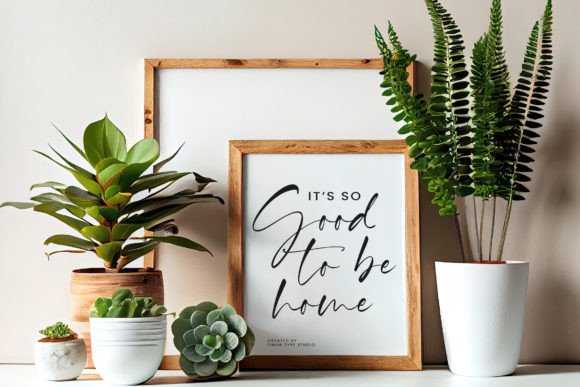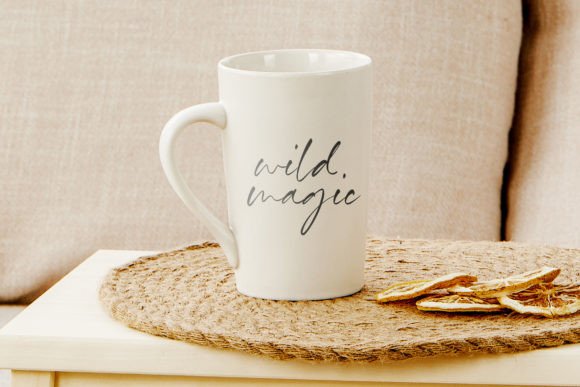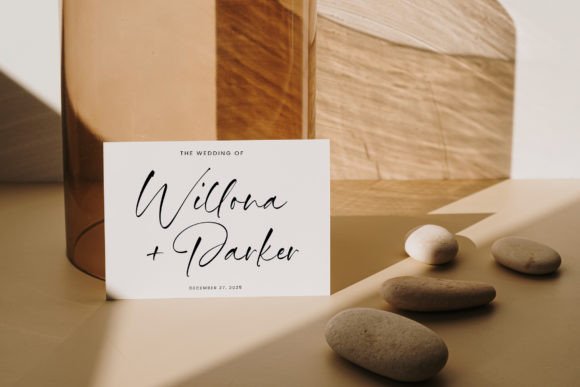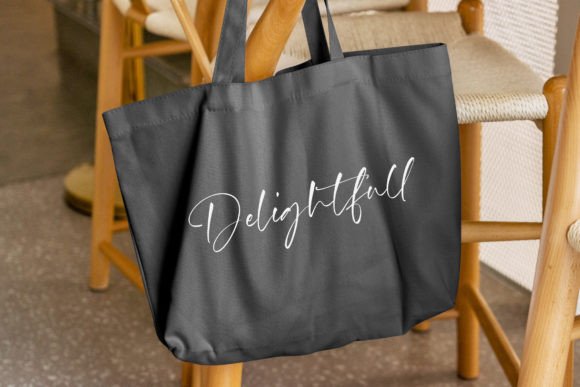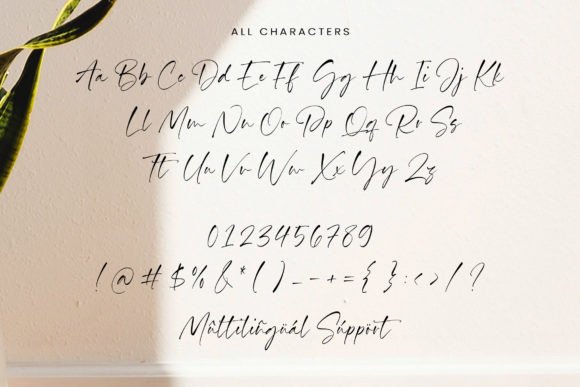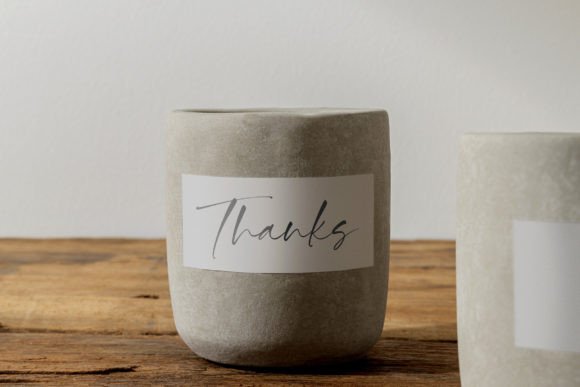
Unlock the Radiant Aesthetic in Your Designs
As a designer, there’s nothing quite like the thrill of finding the perfect font to elevate your project. The moment you stumble upon a font that perfectly captures the essence of your vision – it’s like a lightbulb moment, and all your creative doubts disappear. For those seeking a modern and dynamic aesthetic, look no further than the Bethany Radiant Font.
This fresh and contemporary choice is designed to bring a touch of flair to your design projects. With its unique and expressive letterforms, the Bethany Radiant Font is perfect for adding a trendy and fashionable touch to your branding materials, packaging designs, and social media graphics. Whether you’re aiming for a stylish and modern look or a playful and energetic vibe, this versatile font offers the perfect combination of elegance and charm.
Bethany Radiant Font Key Features
- Unique Characteristics: Elegant script font, perfect for wedding invitations, baby announcements, and other special occasions; features beautiful, flowing lines and delicate flourishes.
- Font Style: Script, Casual, Elegant
Bethany Radiant Font Review
I recently had the chance to work with the Bethany Radiant Font, and I must say, it’s a unique and charming addition to any design project ✨. The font’s elegant, hand-drawn style adds a touch of whimsy and sophistication that’s hard to find in more traditional fonts.
- Distinctive flair: The Bethany Radiant Font has a distinct personality that’s perfect for designers looking to add some visual interest to their work.
- Elegant feel: The font’s smooth, flowing lines create a sense of luxury and refinement that’s perfect for high-end branding or marketing materials.
- Customization options: The font comes in a range of weights and styles, making it easy to find the perfect version to suit your design needs.
Of course, no font is perfect, and the Bethany Radiant Font has a few limitations:
- Readability: In some cases, the font’s unique style can make it difficult to read, especially in smaller sizes or for text-heavy designs.
- Flexibility: The font may not be the best choice for projects that require a lot of bold or condensed text.
- Platform compatibility: I experienced some minor issues with the font’s rendering on certain platforms and devices.
Overall, I think the Bethany Radiant Font is a great choice for designers who want to add a touch of elegance and whimsy to their work. While it may have some limitations, its unique style and customization options make it a valuable addition to any design toolkit ✨.
The Bethany Radiant Font is commonly used in:
- Editorial and publishing designs
- Wedding and event invitations